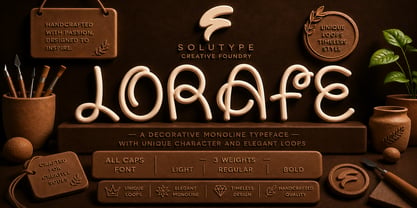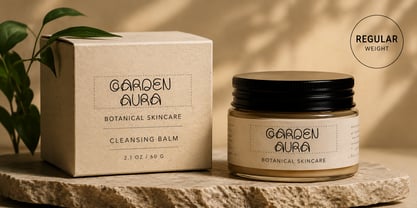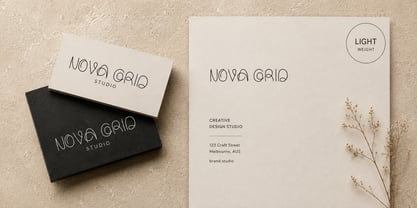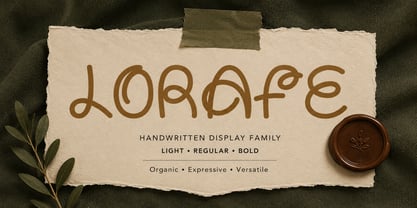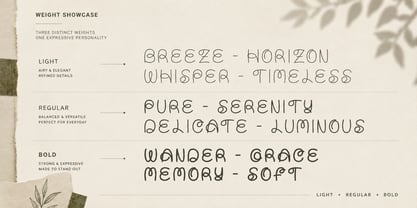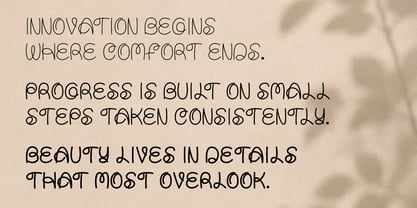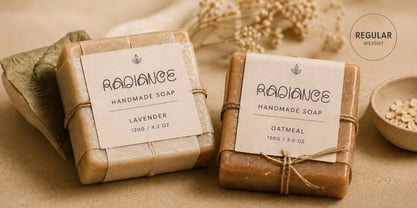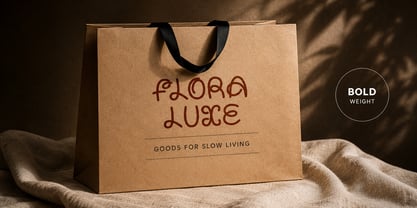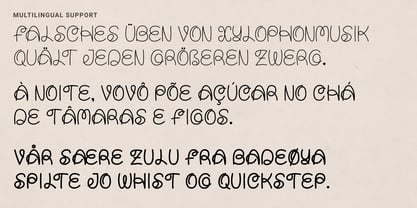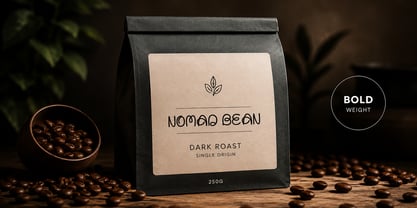
Lorafe
The Lorafe Font Family was designed by Jony Suharsono and published by Solutype. Lorafe contains 3 styles and family package options. More about this family
LORAFE is a handcrafted display font family that blends playful character with refined simplicity. Designed with smooth monoline strokes, rounded forms, and natural handwritten movement, it delivers an authentic and approachable aesthetic while maintaining a clean, contemporary feel.
Featuring three carefully crafted weights — Light, Regular, and Bold — LORAFE offers the flexibility to create elegant typography systems ranging from delicate editorial layouts to confident branding applications. The distinctive letterforms and organic flow bring warmth, personality, and creativity to every project.
Whether you're designing boutique packaging, lifestyle branding, stationery, social media graphics, café identities, product labels, or creative editorials, LORAFE adds a unique handcrafted touch that feels modern, fresh, and effortlessly memorable.
Font Family Includes
• LORAFE Light
• LORAFE Regular
• LORAFE Bold
Font Features
• Uppercase & Lowercase
• Numbers & Punctuation
• Multilingual Support
• Clean Kerning & Spacing
LORAFE is created for designers who want typography that feels natural, expressive, and full of personality while remaining highly versatile across modern branding and creative projects.